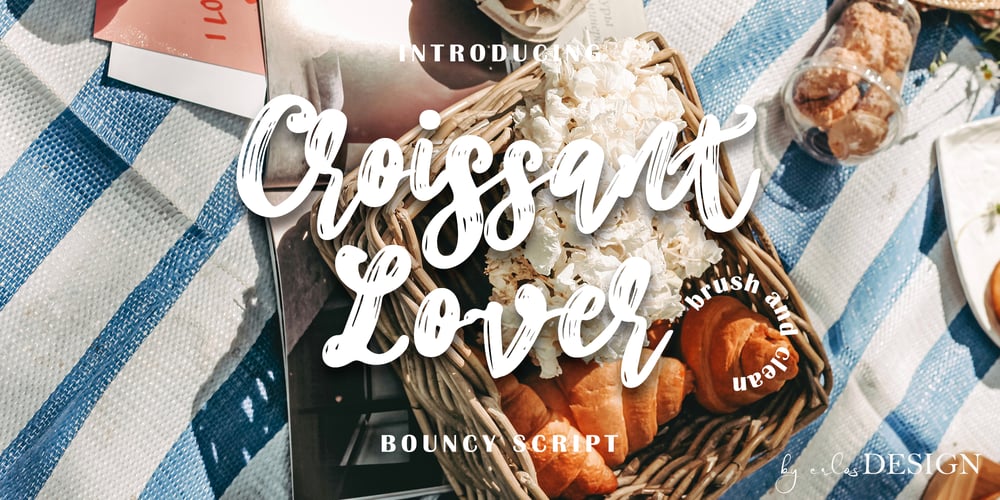
Croissant Lover Font Family was designed by Erlangga Suherman and published by ErlosDesign. Croissant Lover contains 2 styles and family package options. Croissant Lover is a stylish and delicate brush script font. It has a clean, bold and smooth vibe and it will be a hit for any design that you want to add it to.It is suitable for any branding, product packaging, invitation, quote, t-shirt, label, poster, logo that you wish to develop.Croissant Lover Font comes in two variants – Reguler Brush and Block.The file you will get is:• Works on PC & Mac• Simple installation• Encoded PUA Character – Can be accessed completely without additional design software.Enjoy!